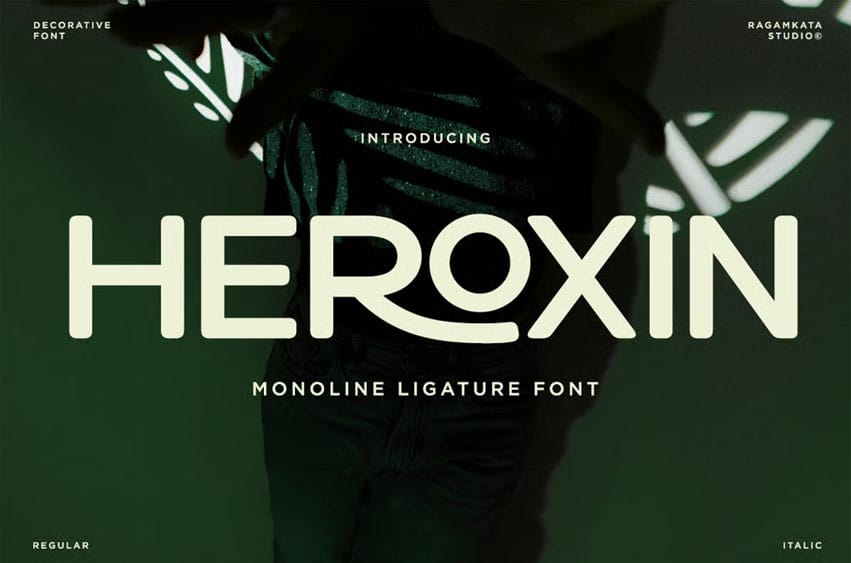
Heroxin Font is a whimsical monoline ligature typeface that captures the magic of a winter wonderland, bringing graceful charm to your holiday projects.